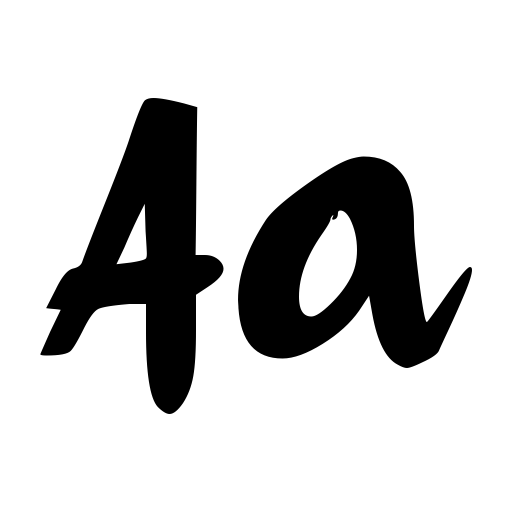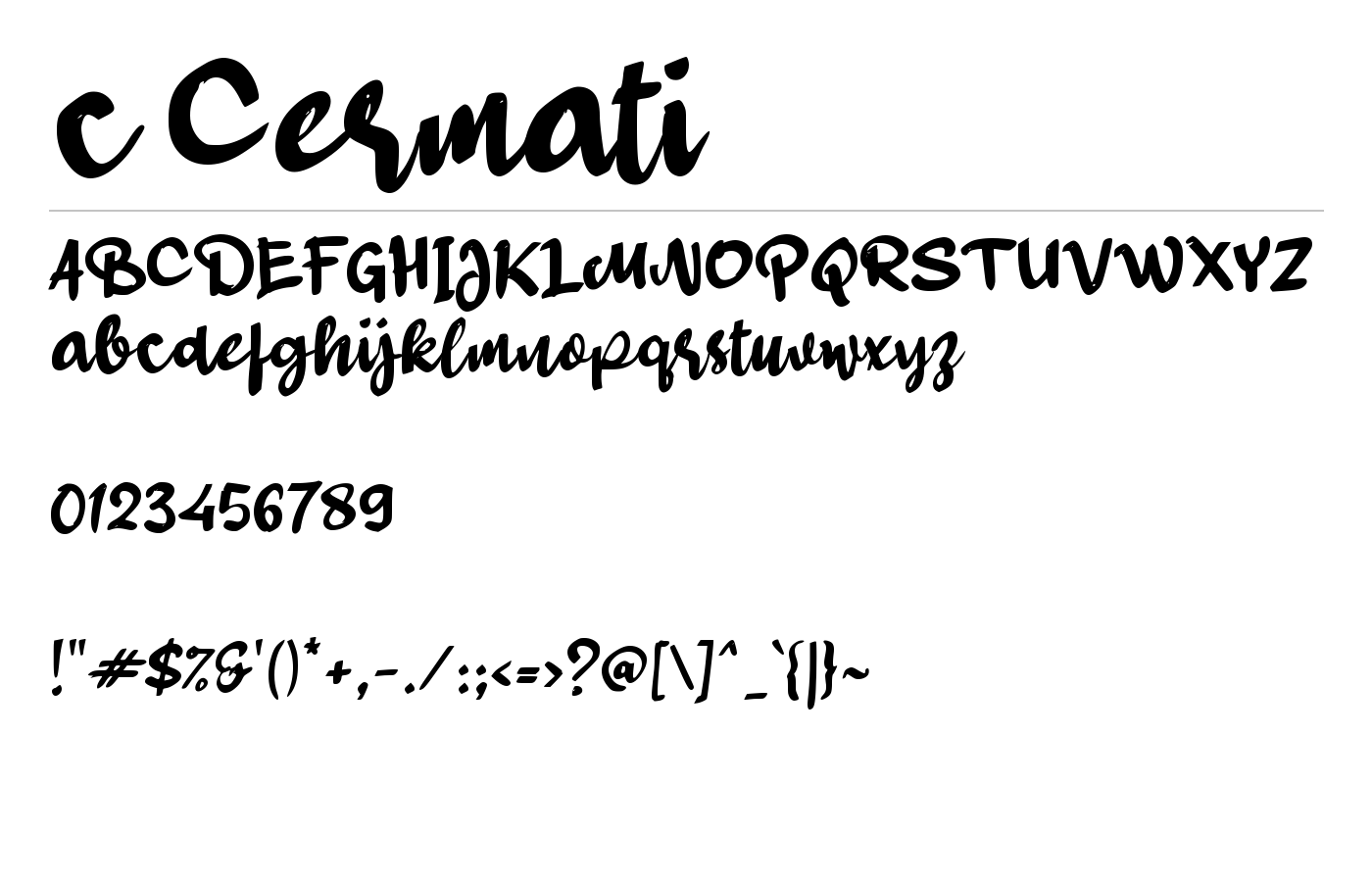
Cermati is a lively brush script font with a casual, handwritten feel, featuring a medium weight and moderate contrast that adds a dynamic charm without sacrificing readability. Its playful letterforms with single-story 'a' and 'g' and slightly irregular strokes evoke warmth and creativity, making it perfect for informal branding, invitations, and artistic projects that seek a personal and friendly touch. This font works well in headlines and logos where a spirited, approachable vibe is desired.
c Cermati Font
About c Cermati Font